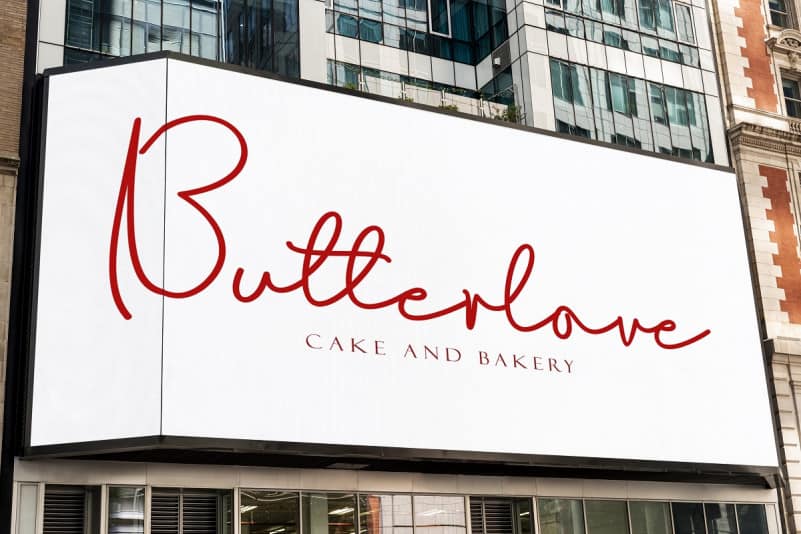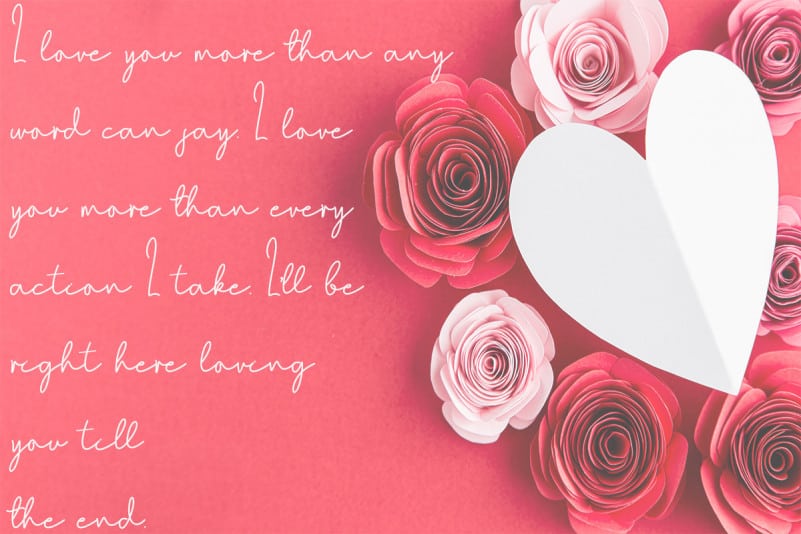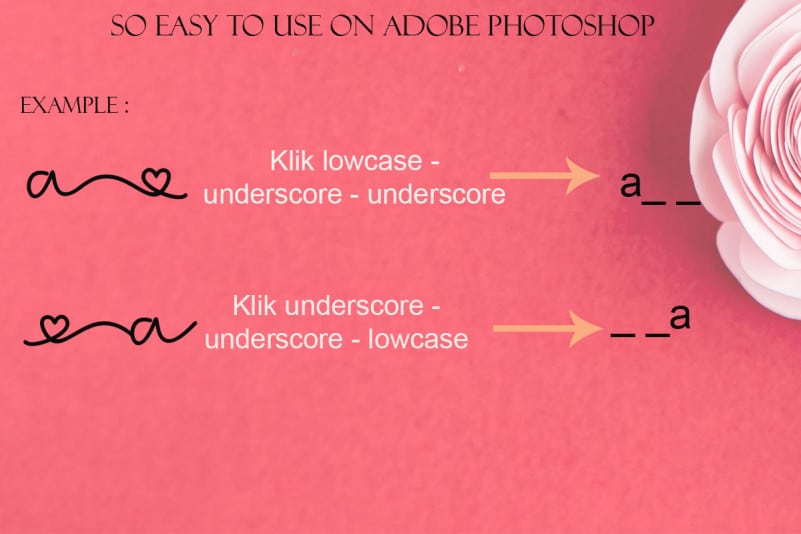
Shamilove Handwritten Font is a very beautiful and romantic font. This font is very easy to use with a heart-shaped swash, so it will add to the beauty of this font. This font is perfect for Valentine’s, to express your feelings to your partner, weddings, birthdays, quotes, product promotions, social media updates, your business promotions, and more.